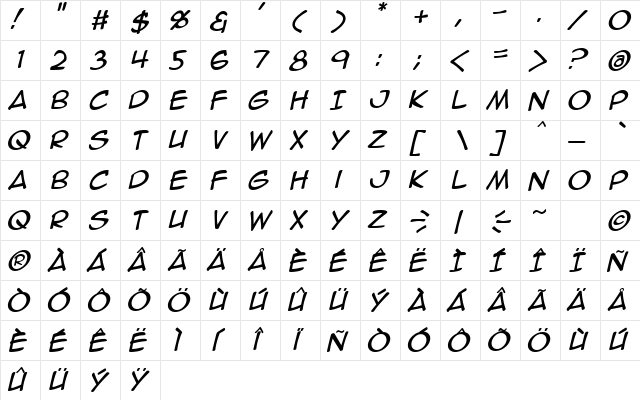
Anime Ace 2.0 BB Italic
| Foundry | Nate Piekos, Blambot.com |
| Designer | Nate Piekos |
Design Context for Anime Ace 2.0 BB Typeface
Anime Ace 2.0 BB is a composed and adaptable typeface that performs quietly and consistently across a wide range of design contexts. Its italic angle brings a sense of urgency and motion to the letterforms.
Pro Tip: Use Anime Ace 2.0 BB for emphasis, pull quotes, and subheadings where its slanted energy can add rhythm to the layout.